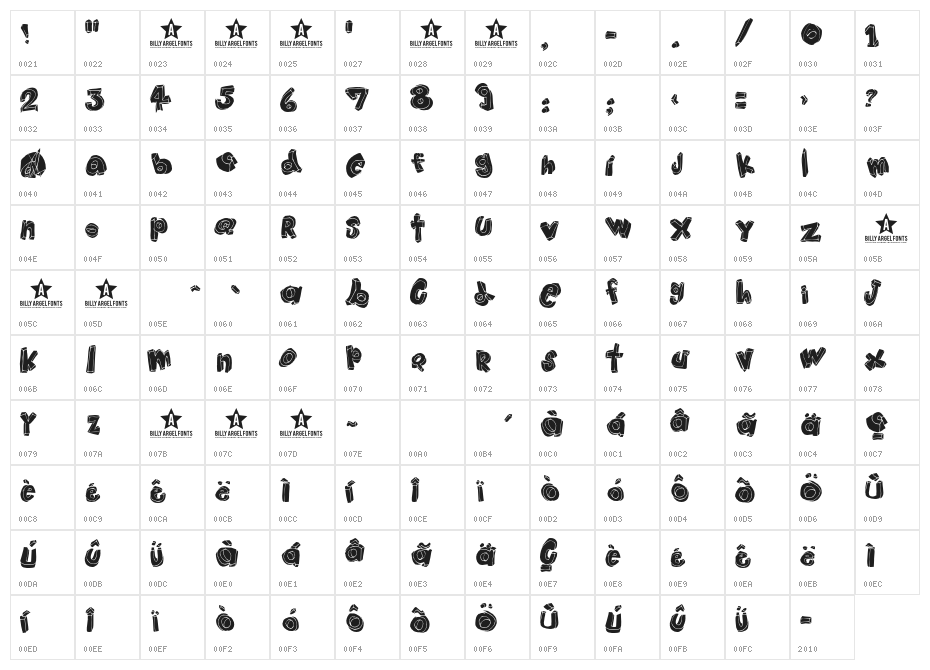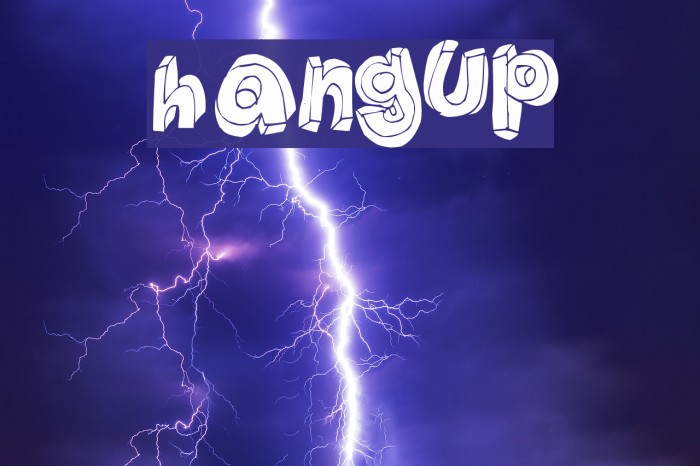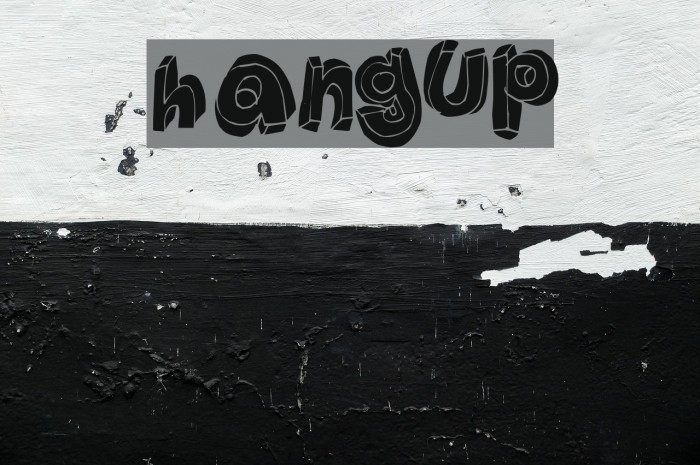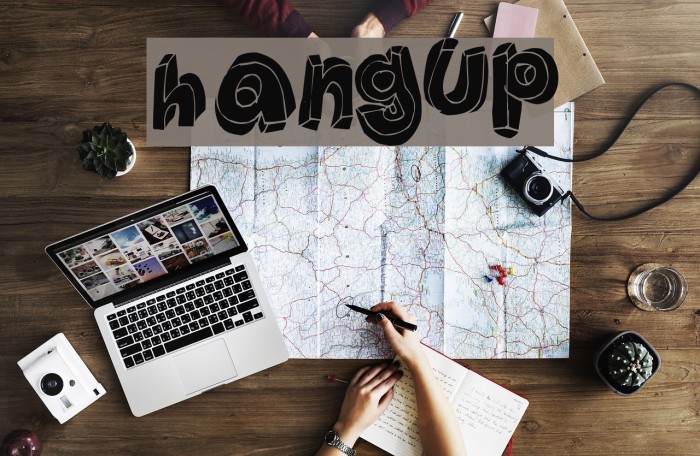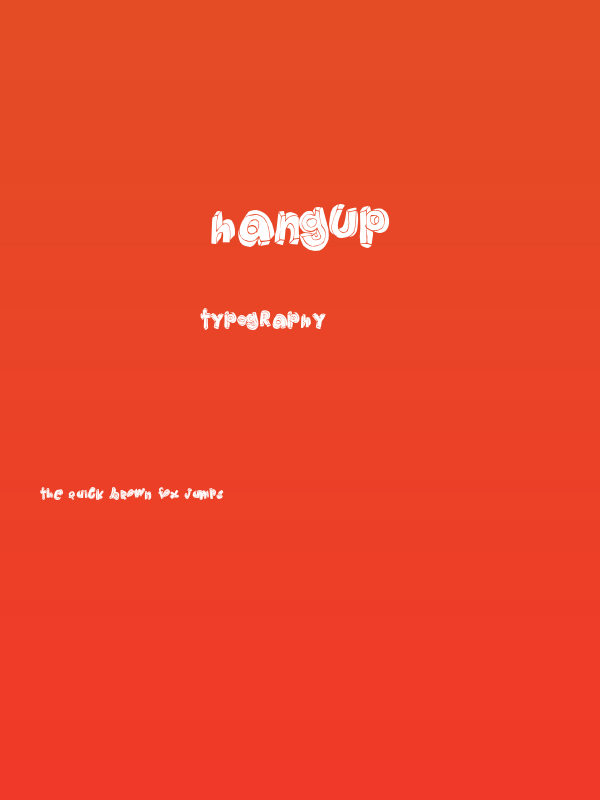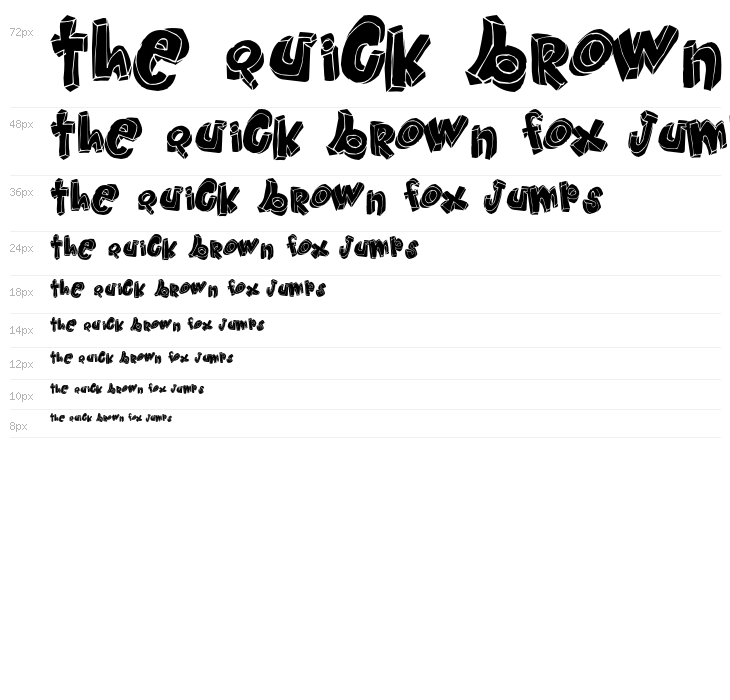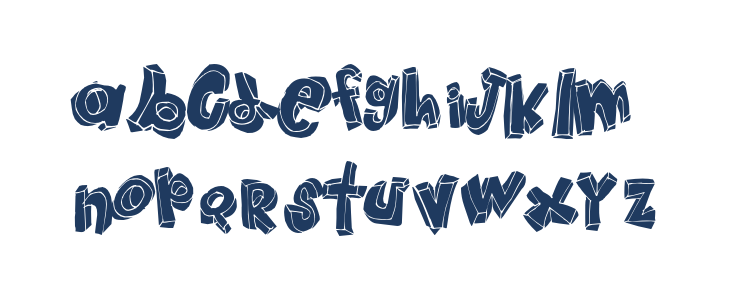
HANGUP Font
HANGUP Description
This font features a bold and playful design with a three-dimensional effect that gives each character a unique, shadowed appearance. The letters are irregular and quirky, with varying thicknesses and angles that create a dynamic and energetic feel. The uppercase and lowercase letters maintain this playful style, making it suitable for creative and informal projects. The numbers and special characters are equally bold and maintain the same three-dimensional, shadowed style, ensuring consistency across all text elements.
| Overall Style | Playful, Energetic, Creative |
| Use Case | Headlines, Posters, Branding |
| Proposed Projects | Ideal for children's books, comic strips, playful branding, and eye-catching posters. |